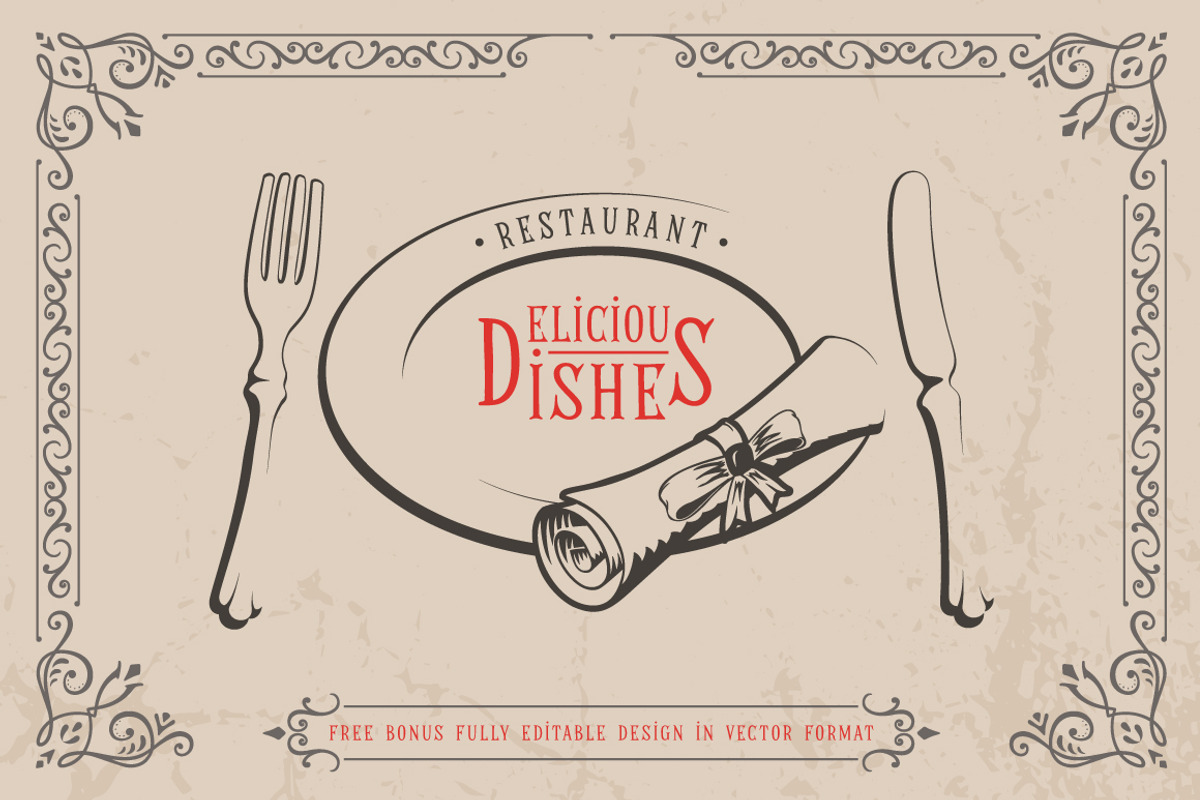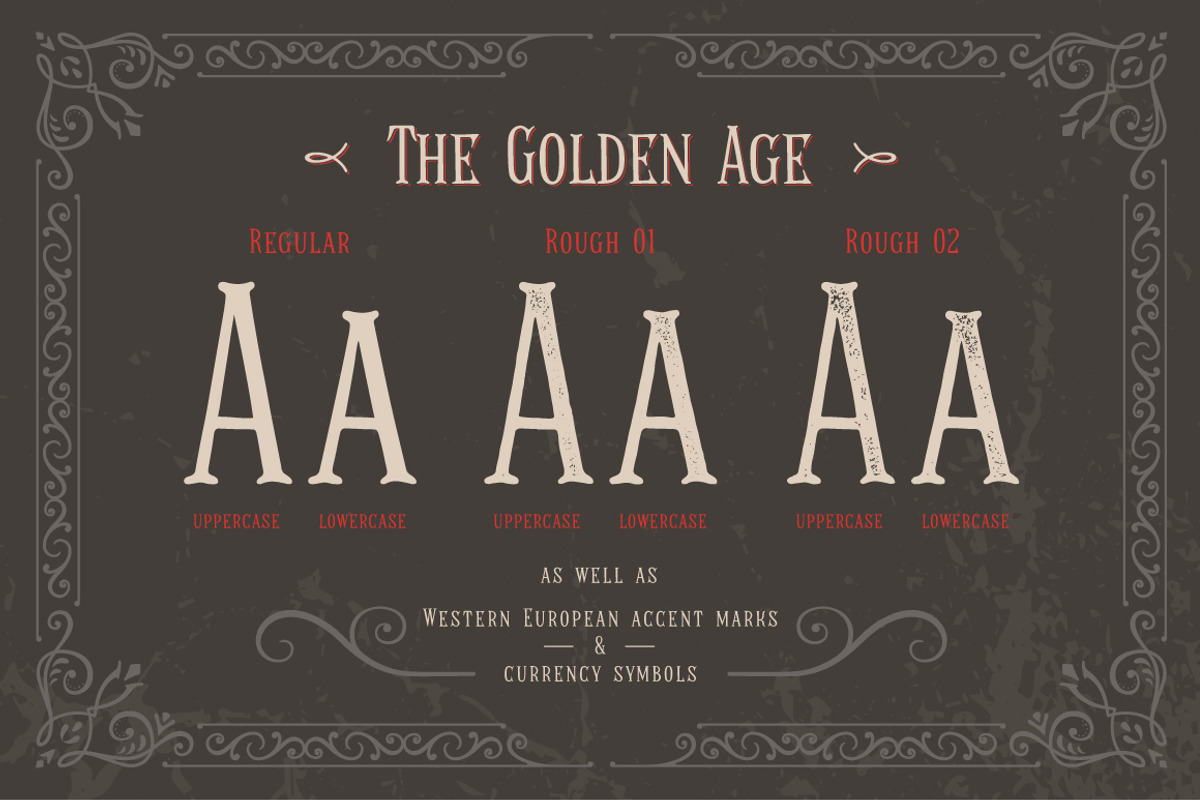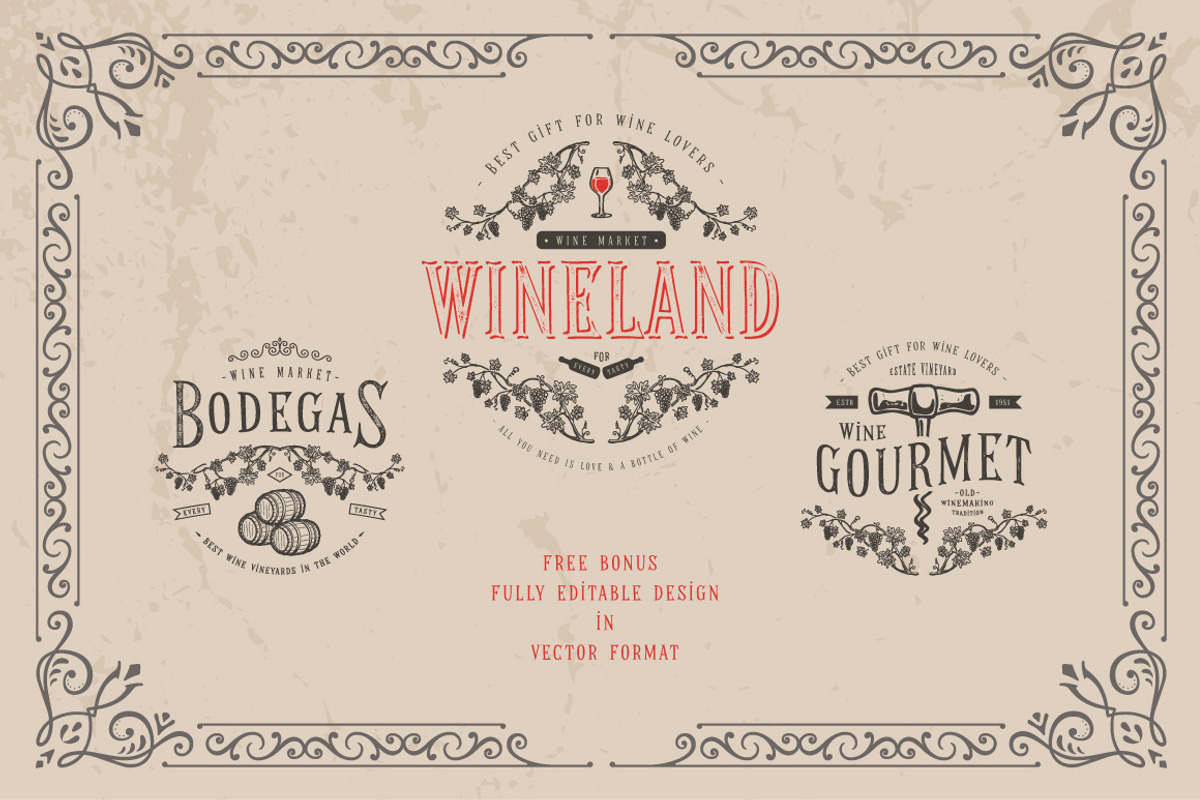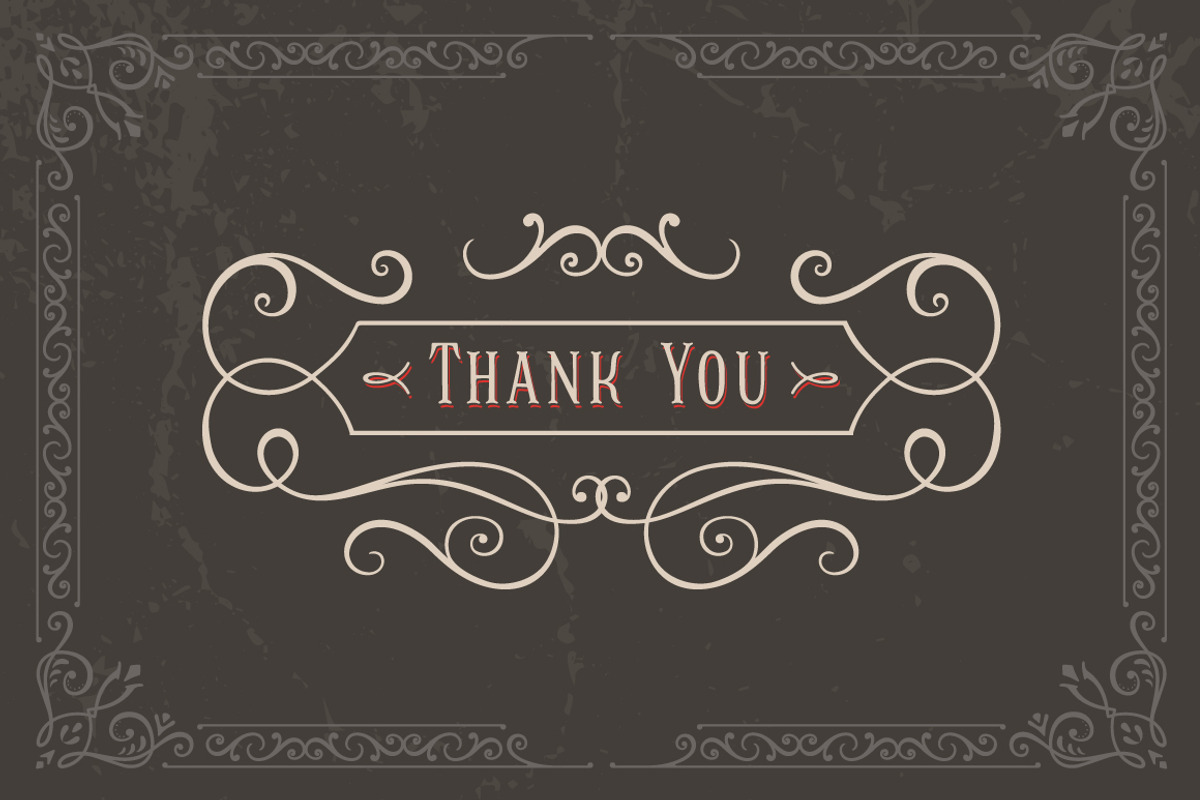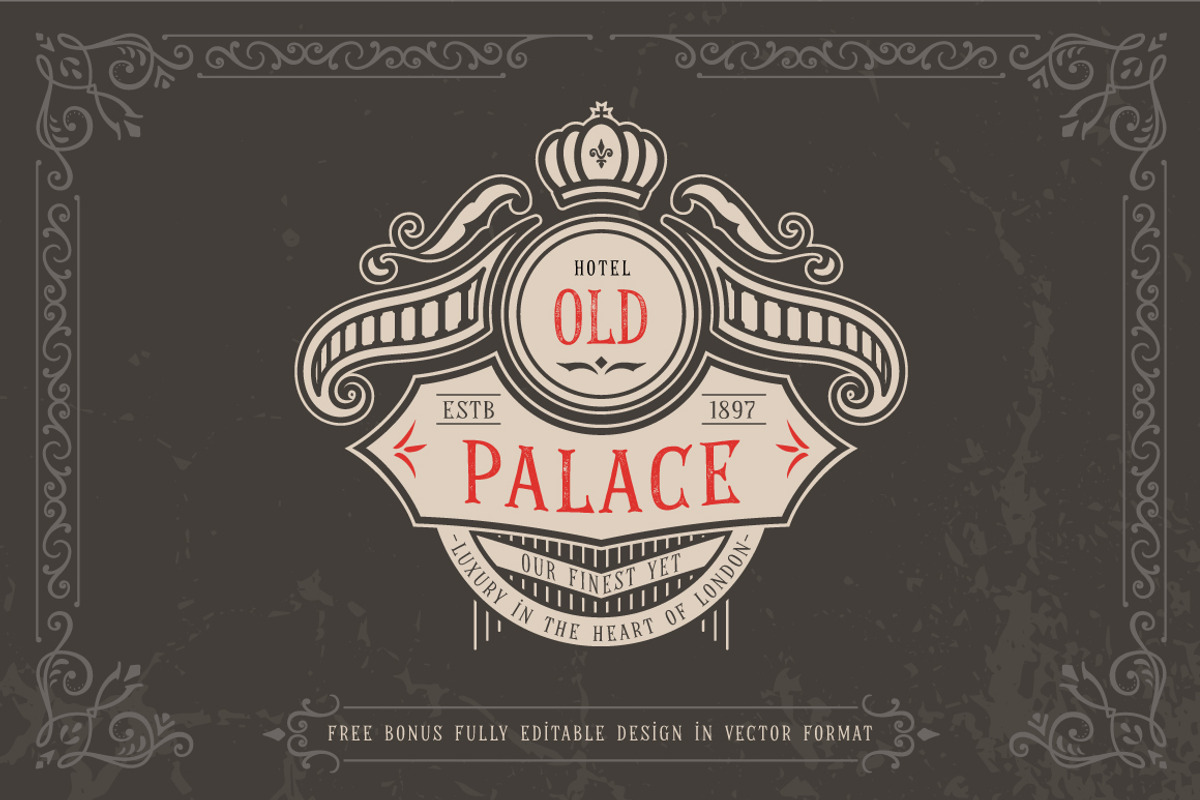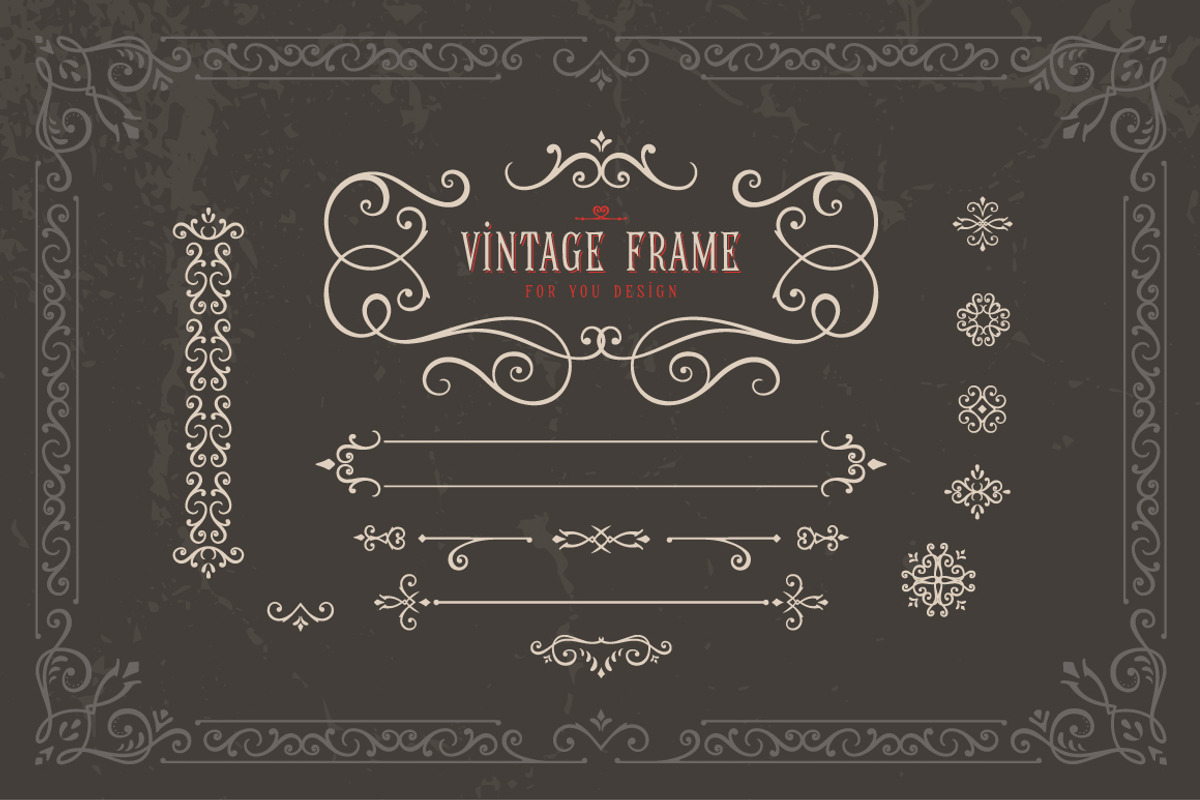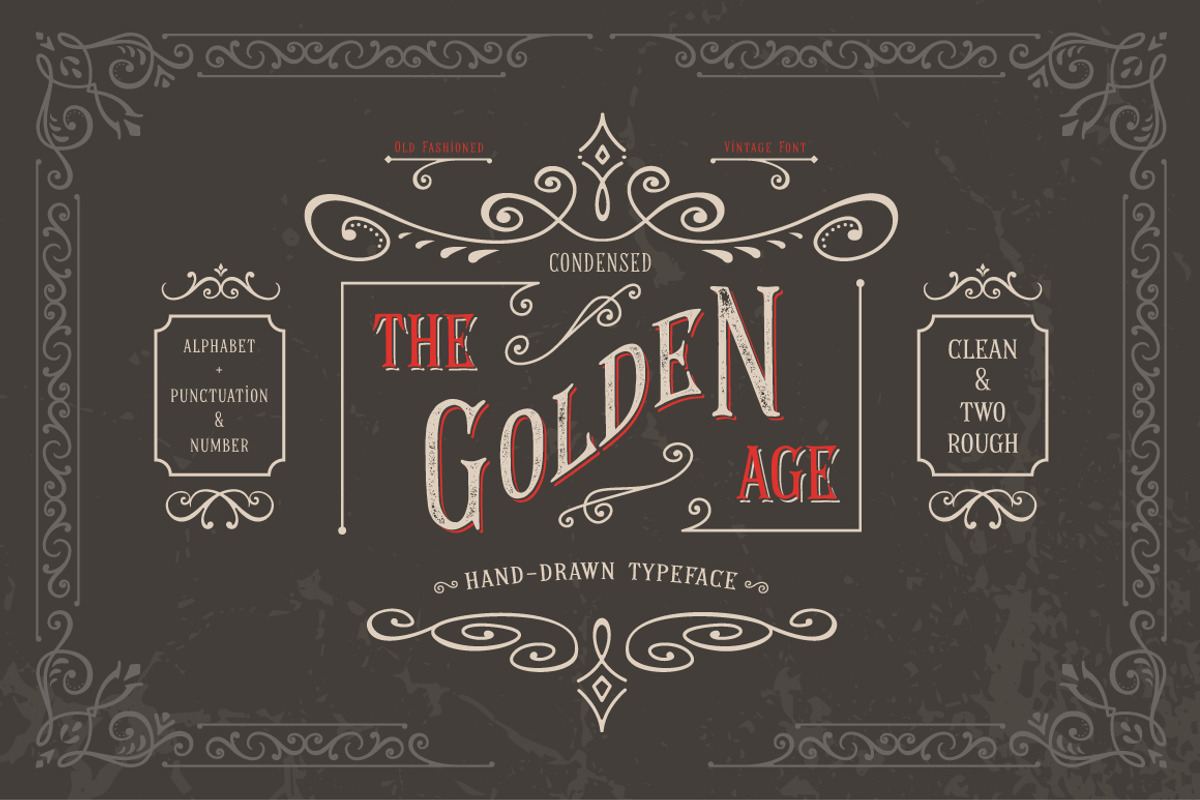
The Golden Age Typeface
The Golden Age typeface is a vintage display font. It comes with three styles, clean and two rough for different types of design. The typeface includes a full set of uppercase and lowercase letters, as well as multi-lingual support (only Western European accent marks), numerals, punctuation and currency symbols. Also you are given a free bonus - all decorative elements are used to demonstrate this product. They are in ai. format with an editable text.
- It comes with three styles, clean and two rough for different types of design.
- The typeface includes a full set of uppercase and lowercase letters, as well as multi-lingual support (only Western European accent marks),
- It comes with three styles, clean and two rough for different types of design.
- The typeface includes a full set of uppercase and lowercase letters, as well as multi-lingual support (only Western European accent marks),
Why The Golden Age Typeface is worth a look
The Golden Age Typeface by Magicpics fits naturally into Branding, posters, packaging, typography.